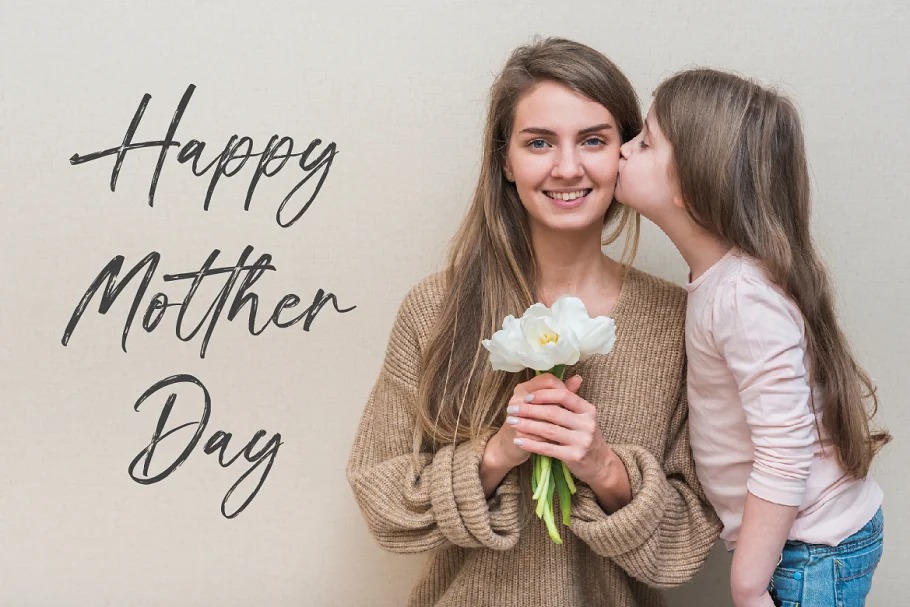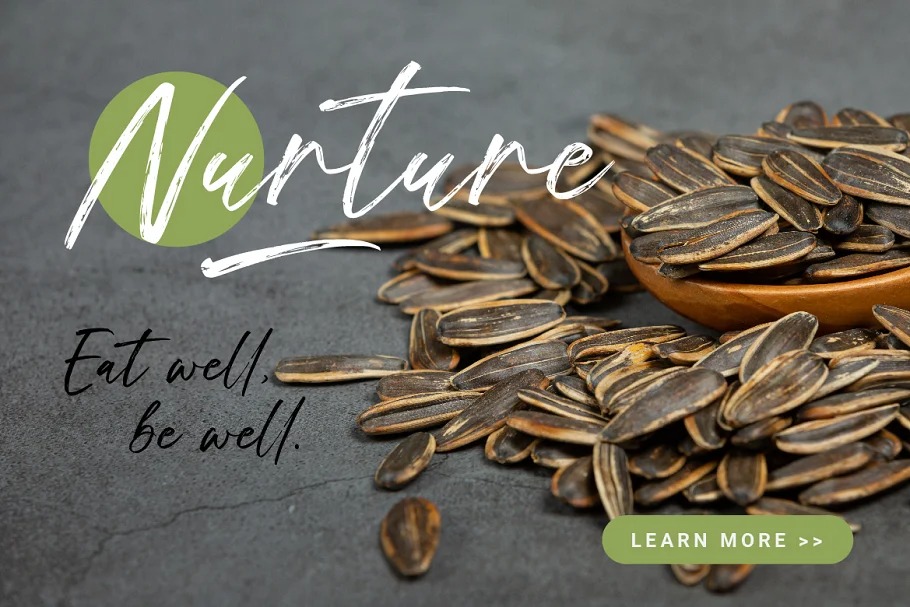
Frasell Brush Font
This is a casual brush handwritten font crafted & designed by Ef Studio. It will add an incredibly joyful touch to your designs. This is a script font that suitable for branding, invitation, packaging, merchandise, website, advertisement, magazine, logo, and more. You will get full set of lowercase and uppercase letters, numerals and punctuation, multilingual symbols, ligatures and extra swashes.